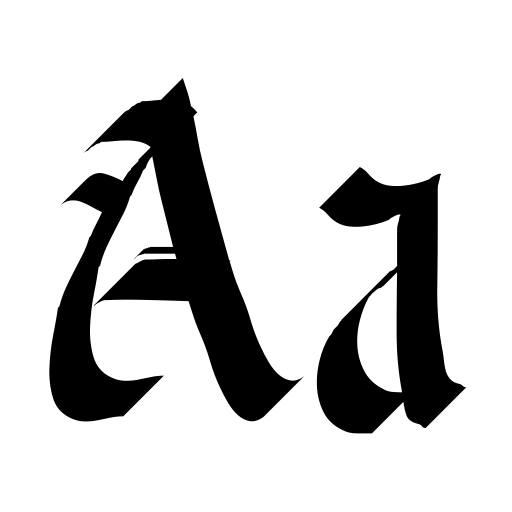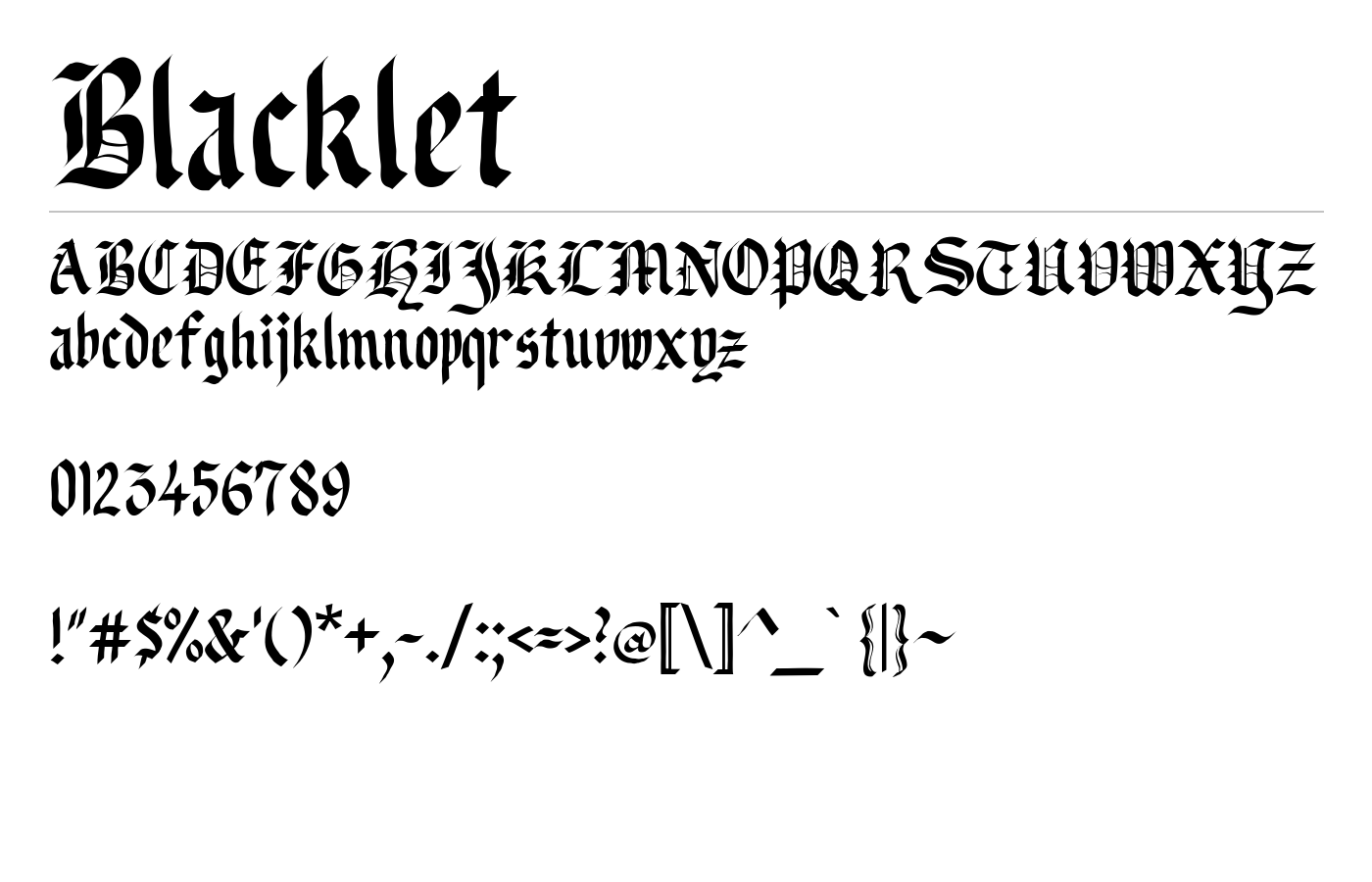
Blacklet is a bold blackletter-style font characterized by its sharp, angular strokes and high contrast between thick and thin lines. It evokes a traditional, medieval feel with intricate, gothic letterforms, making it ideal for designs seeking an old-world or vintage atmosphere. This font works well for headlines, logos, and branding that want to communicate strength, heritage, and a distinctive classic style.
Blacklet Font
About Blacklet Font
| Font family | Blacklet Font |
| Designer | Dan P. Lyons |